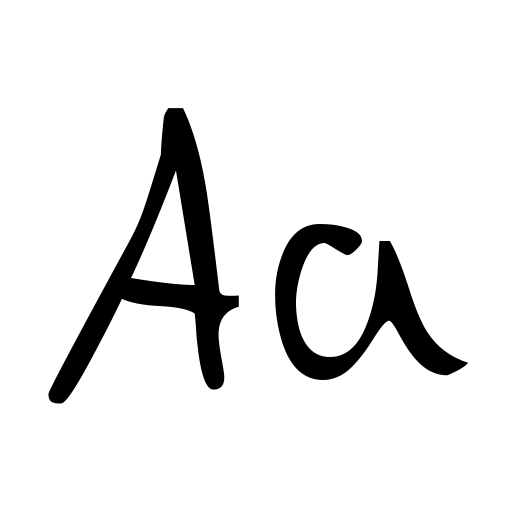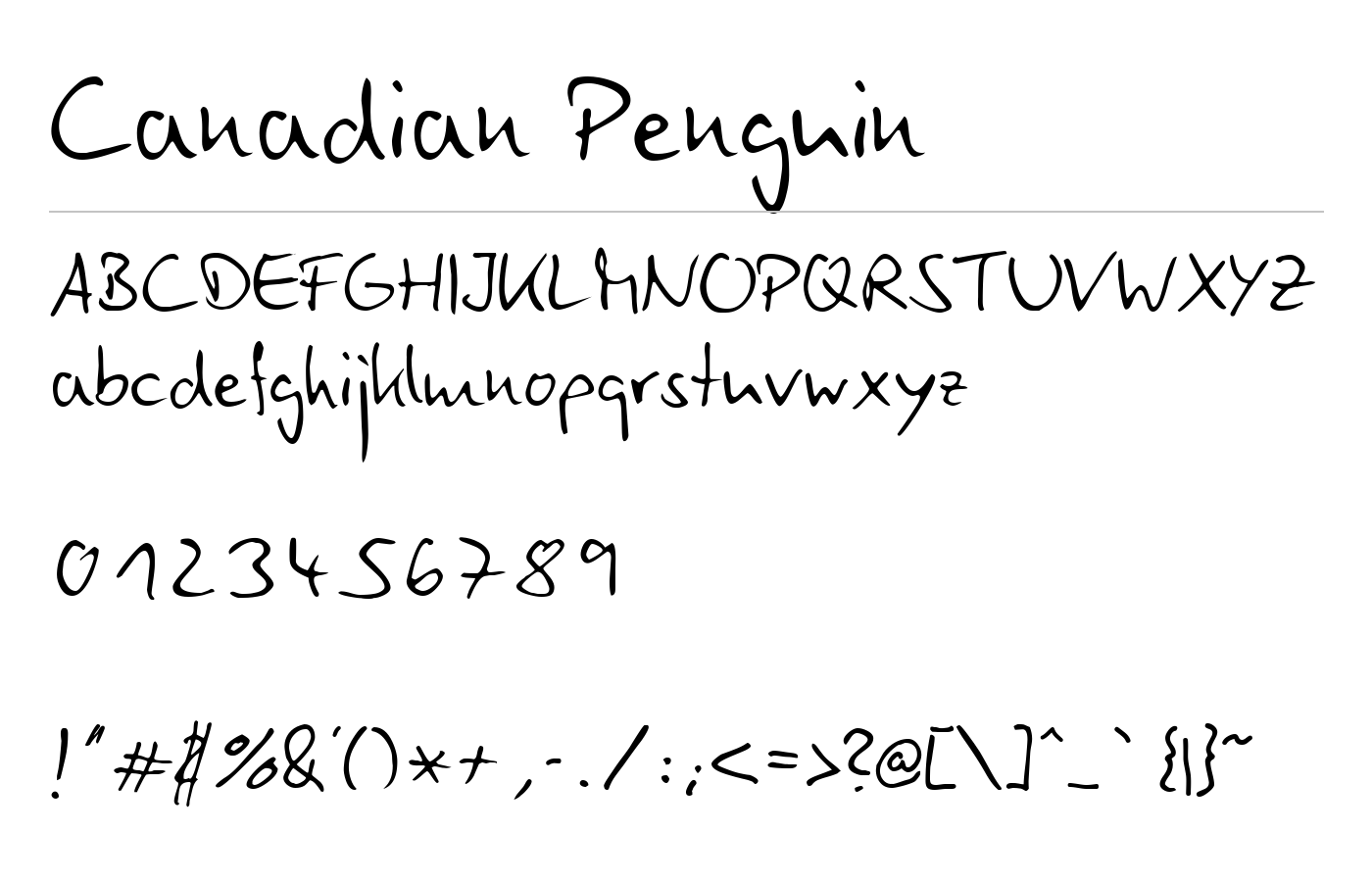
Canadian Penguin is a casual, handwritten sans serif font that feels approachable and playful with its light weight and uneven, organic strokes. Its tall x-height and loose letter spacing give it a friendly, informal vibe perfect for personal projects, creative branding, or relaxed editorial design. This font works well where a hand-drawn, authentic touch is desired, making text feel warm and inviting without sacrificing readability.
Canadian Penguin Font
About Canadian Penguin Font